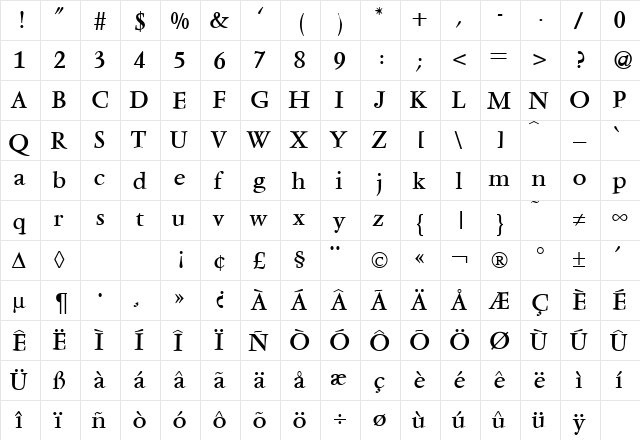
VendomeTwo Regular
Design Context for VendomeTwo Typeface
VendomeTwo offers clean, dependable letterforms without strong stylistic allegiance, making it a practical choice for designers who need flexibility.